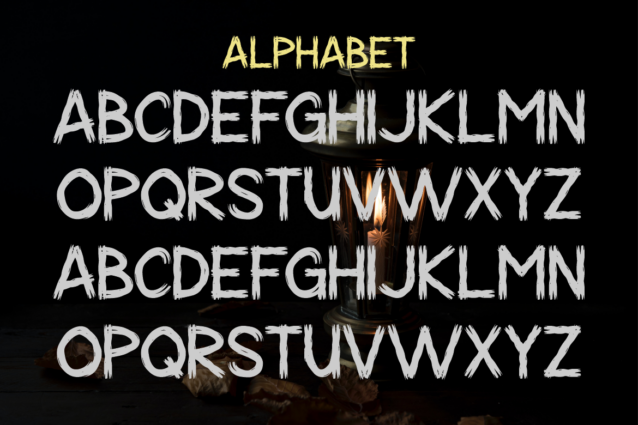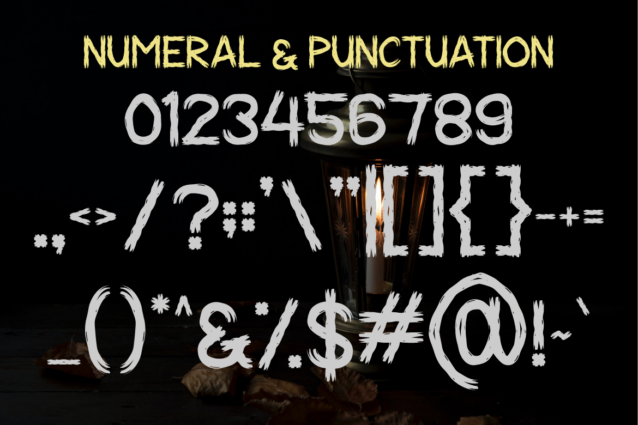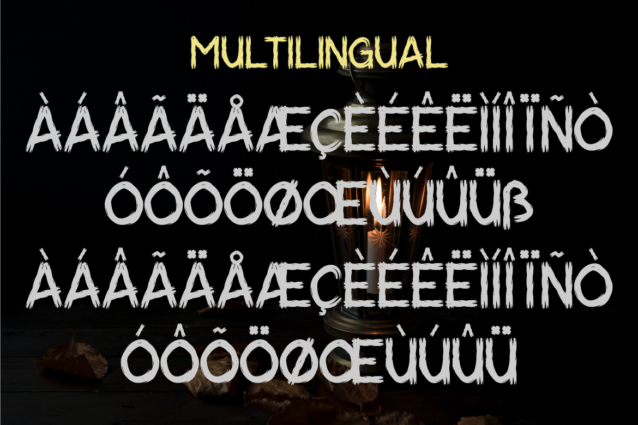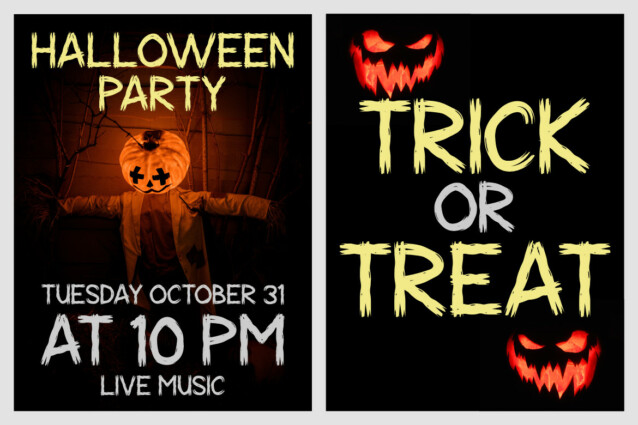
Zuriah Display Font is a display font, specifically designed to create a spooky, mysterious atmosphere and depict the spirit of Halloween celebrations. This font can be used in various Halloween-related media, such as party invitations, posters, merchandise designs, greeting cards, warning signs, or within website designs with Halloween themes.
Zuriah Display Font